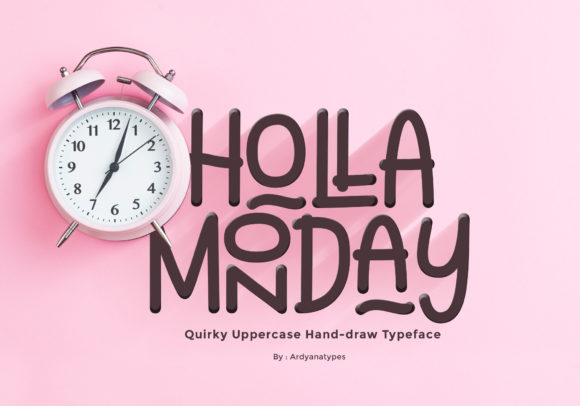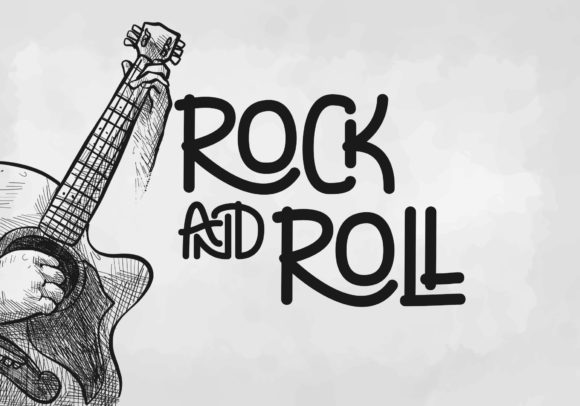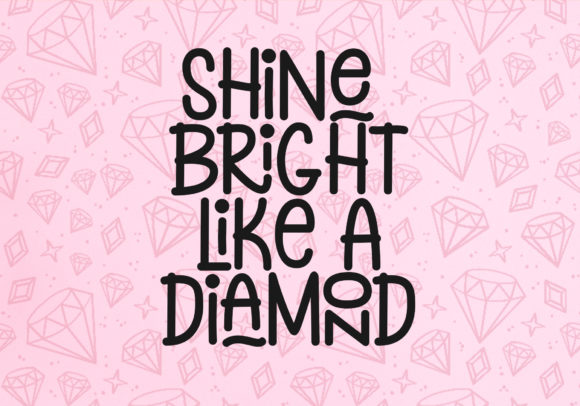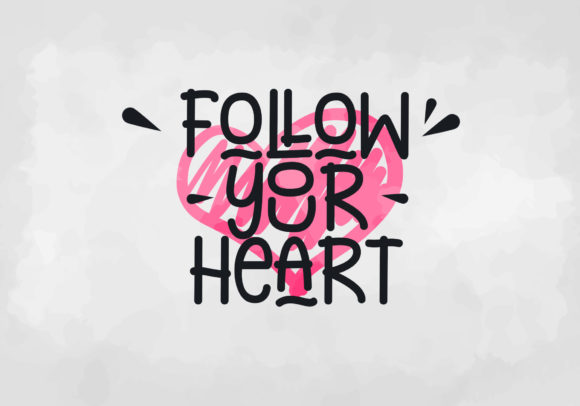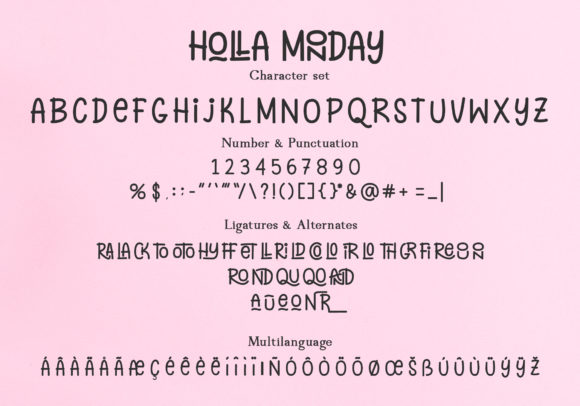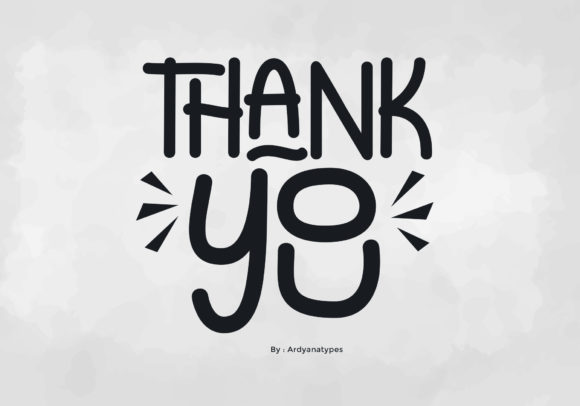
Holla Monday Font
About Holla Monday Font
Holla Monday is a cute and quirky handwritten font. Masterfully designed to become a true favorite, this font has the potential to bring each of your creative ideas to the highest level!